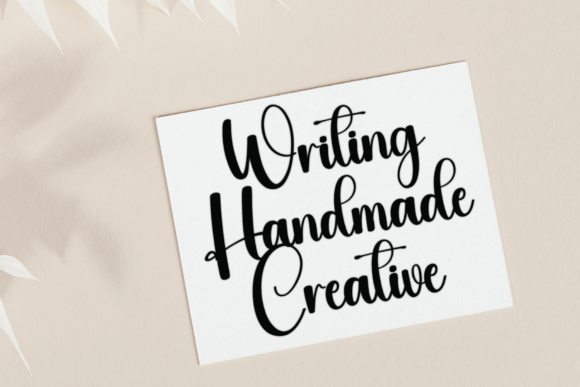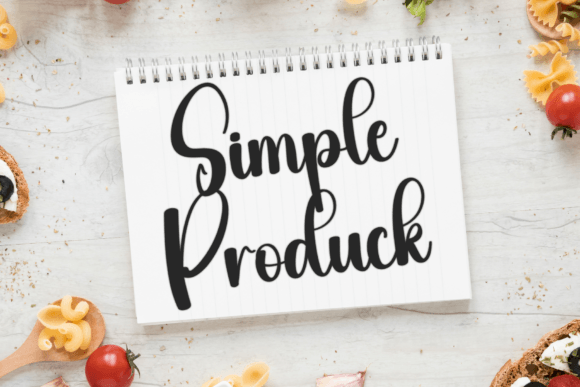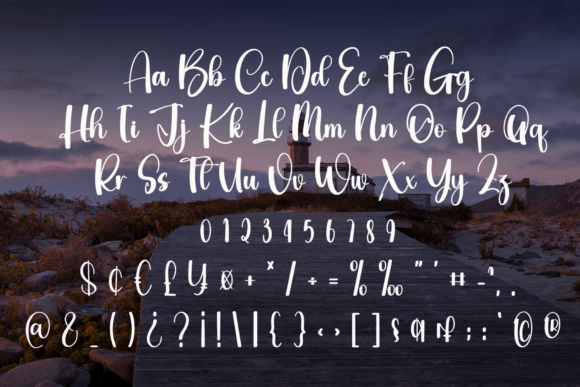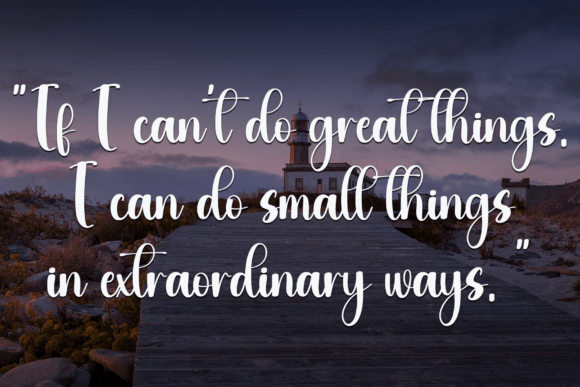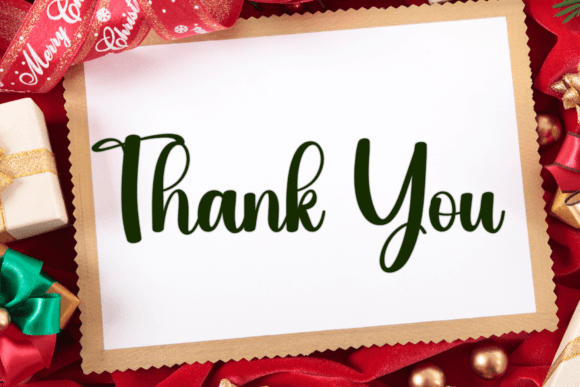
Christmas Beautiful Font: A Charming Script Font for Your Holiday Designs
As the holiday season approaches, designers and crafters are on the lookout for the perfect font to add a touch of magic to their Christmas designs. Look no further than Christmas Beautiful Font, a charming script font that embodies the spirit of the season with its fresh and casual elegance.
What is Christmas Beautiful Font?
Christmas Beautiful Font is a delightful script font that is imbued with a sense of freshness and casual elegance. Its fluid strokes and organic lines evoke a laid-back vibe, making it perfect for various design projects. Whether used for branding, invitations, or social media graphics, Christmas Beautiful Font adds a touch of warmth and personality to any design.
Key Features of Christmas Beautiful Font
- Fluid Strokes: Christmas Beautiful Font features fluid strokes that give it a smooth and elegant look.
- Organic Lines: The font’s organic lines add a touch of whimsy and playfulness, making it perfect for holiday designs.
- Casual Elegance: Christmas Beautiful Font exudes a sense of casual elegance, making it suitable for a wide range of design projects.
- Warmth and Personality: The font’s unique charm adds a touch of warmth and personality to any design.
Uses for Christmas Beautiful Font
Christmas Beautiful Font is a versatile font that can be used for a variety of design projects, including:
- Holiday Invitations: Create beautiful and inviting holiday invitations that set the tone for your festive celebrations.
- Social Media Graphics: Add a touch of holiday cheer to your social media graphics with Christmas Beautiful Font.
- Branding: Use Christmas Beautiful Font to create a unique and memorable brand identity for your holiday-themed business or product.
- Crafting Projects: Add a personal touch to your crafting projects, such as handmade cards, gift tags, and decorations.
Tips for Using Christmas Beautiful Font
To get the most out of Christmas Beautiful Font, here are a few tips to keep in mind:
- Pair with Complementary Fonts: Pair Christmas Beautiful Font with complementary fonts to create a unique and visually appealing design.
- Use for Headings and Titles: Use Christmas Beautiful Font for headings and titles to add a touch of elegance and sophistication.
Christmas Beautiful Font is a charming script font that is perfect for adding a touch of holiday cheer to your designs. With its fluid strokes, organic lines, and casual elegance, it’s sure to become a favorite among designers and crafters. Whether used for holiday invitations, social media graphics, branding, or crafting projects, Christmas Beautiful Font is sure to bring a smile to everyone’s face.